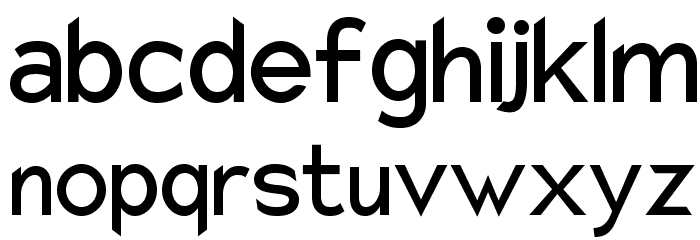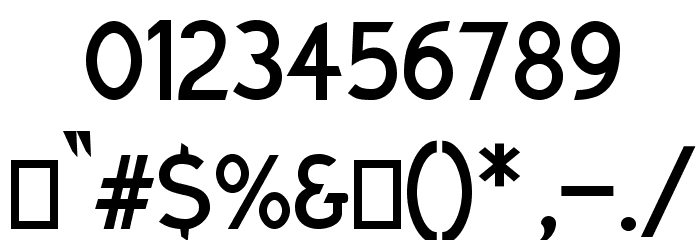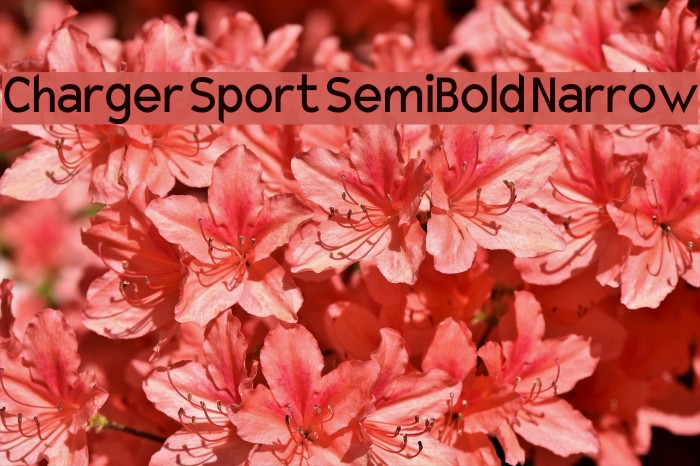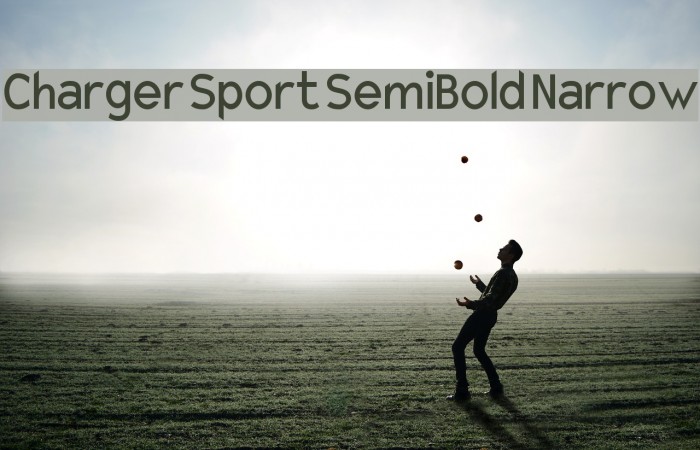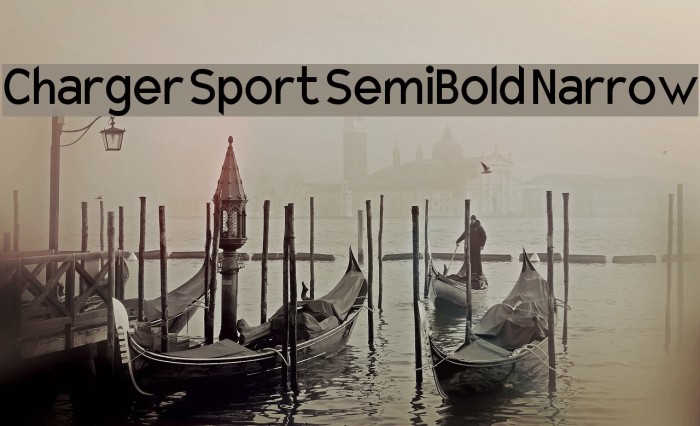
Charger Sport SemiBold Narrow Font
This font features a clean, modern aesthetic with a semi-bold weight that provides a strong presence without overwhelming the design. The narrow width contributes to a sleek and compact appearance, making it ideal for space-conscious layouts. Its sans-serif style ensures readability and versatility across various applications. The characters are well-proportioned, with consistent stroke widths that offer a balanced look. The font's design is straightforward yet impactful, suitable for both digital and print media. Its geometric shapes and smooth curves give it a contemporary feel, while the uniform character spacing ensures clarity and legibility.
A modern, semi-bold, narrow sans-serif font with a clean and compact design.
- Proposed Projects: Ideal for branding, advertising, headlines, and user interfaces where a modern and professional look is desired.
- Use Case: Headlines, Branding, Advertising